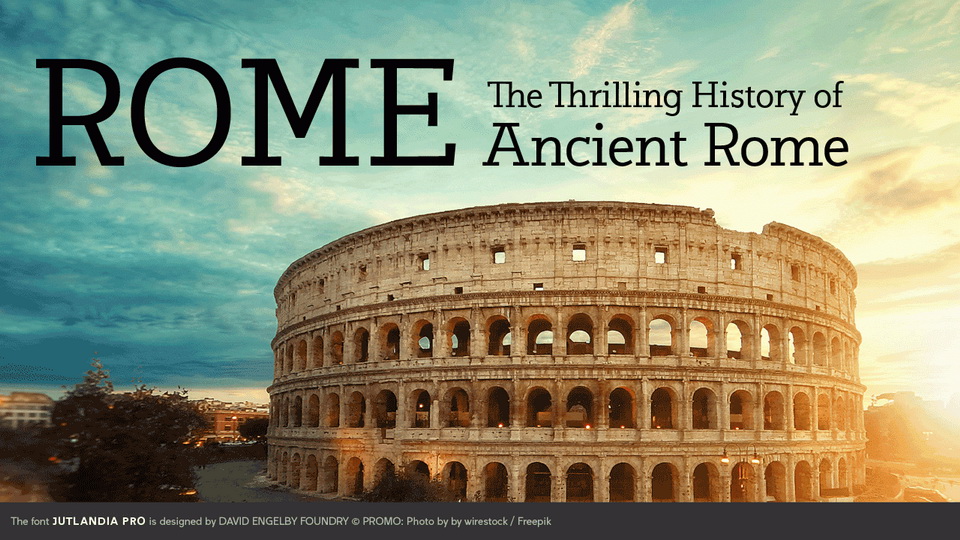
Jutlandia Pro Typeface Jutlandia Pro is a slab serif font family, a redesign of Jutlandia Slab. The typeface comes in two weights, including matching Italics. Great for tons of text as well as for headlines and logo fonts. DOWNLOAD (OFFSITE) Facebook Twitter Pinterest VK Share by email Designed by: David Engelby Website License: Free for commercial use October 13, 2020 featured in Slab Serif By Fontesk